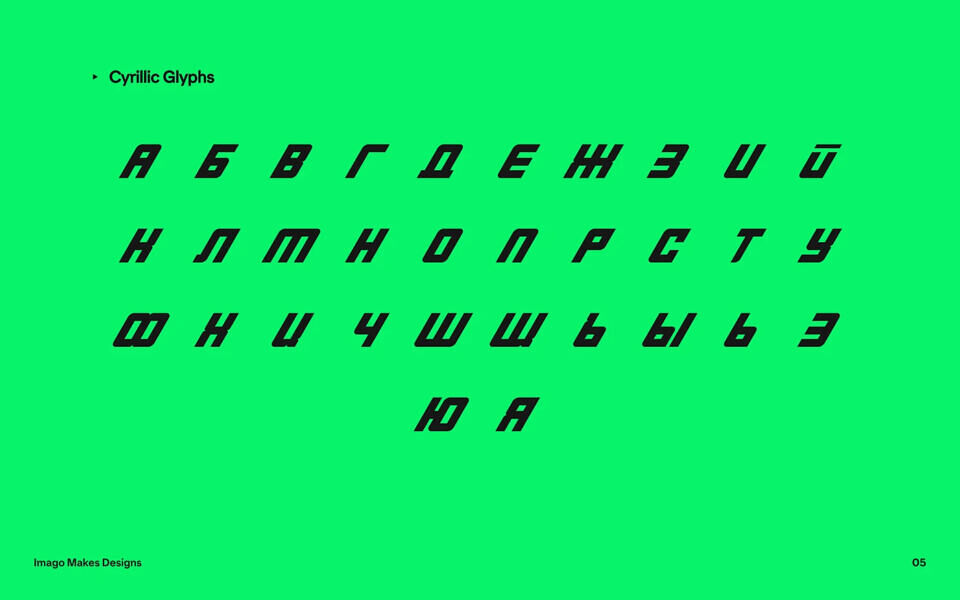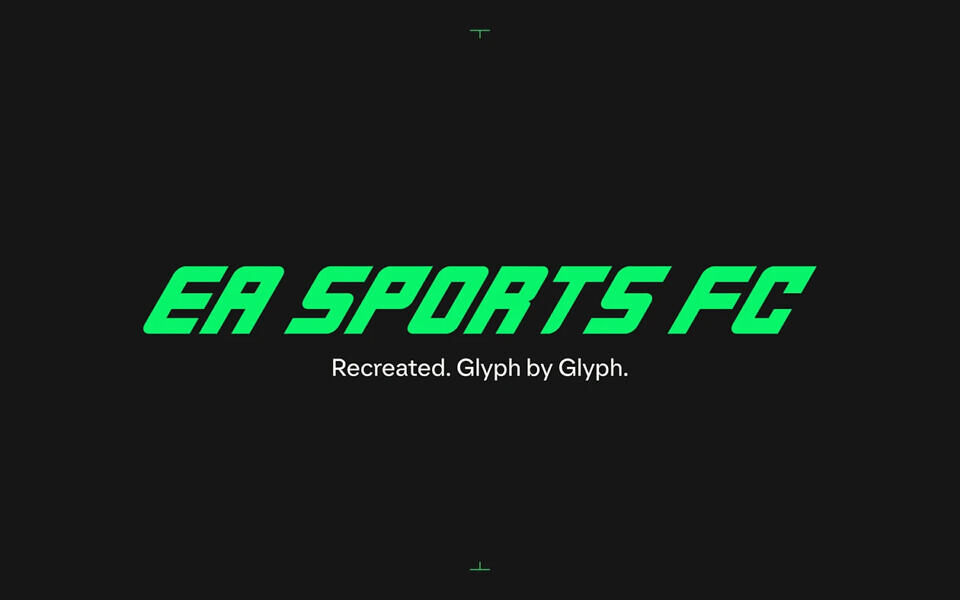
EA Sports FC Logo Font
EA Sports FC Logo Font features a bold, athletic sans-serif style with strong geometric letterforms perfect for sports branding, football graphics, and gaming titles.
Its crisp, modern characters mirror the dynamic energy of the EA Sports FC identity, balancing sleek lines with powerful visual impact that stands out in logos and headlines. Ideal for designers seeking a striking, contemporary typeface with a competitive edge.